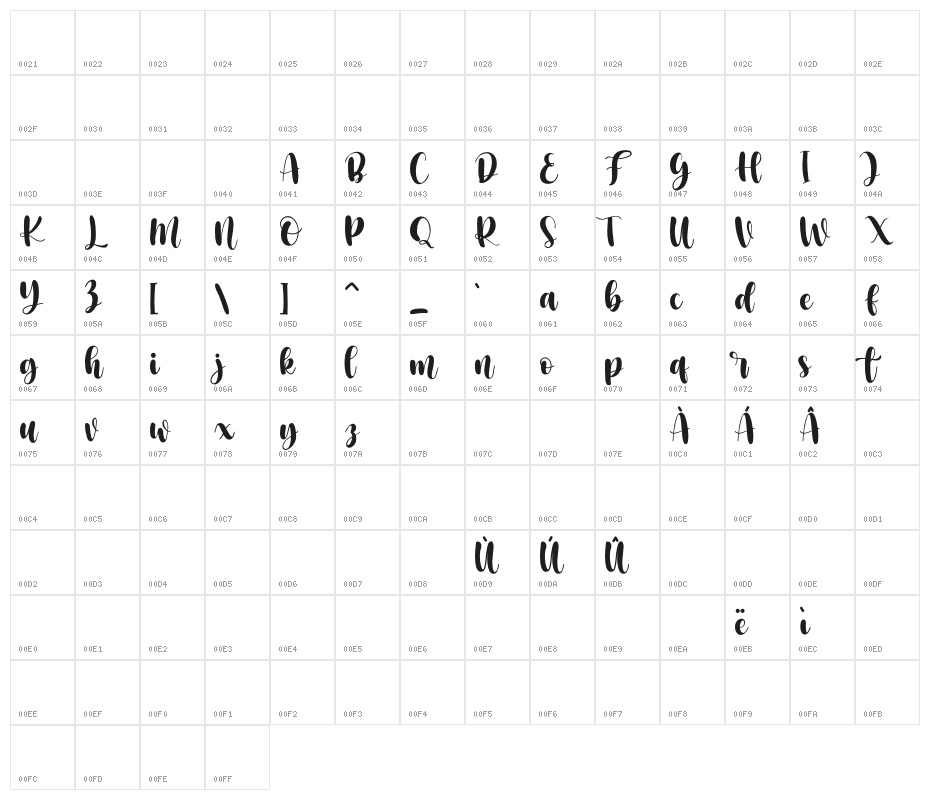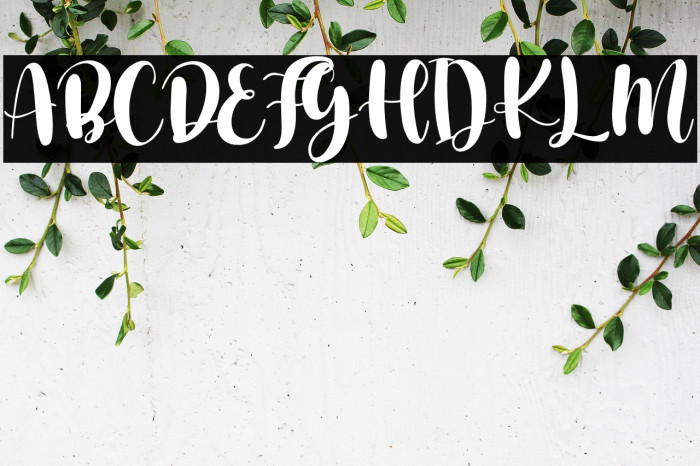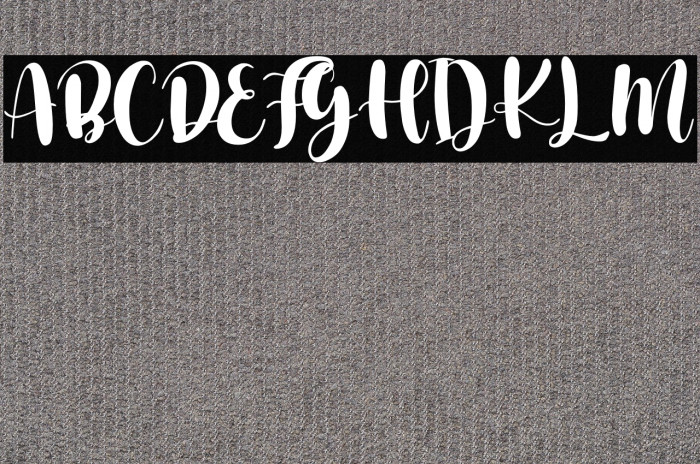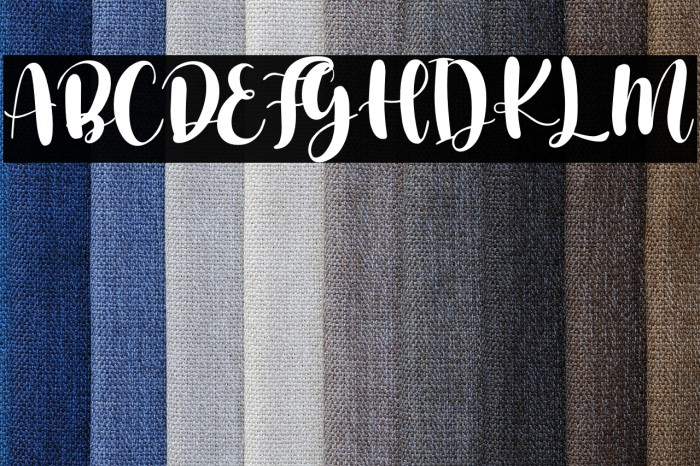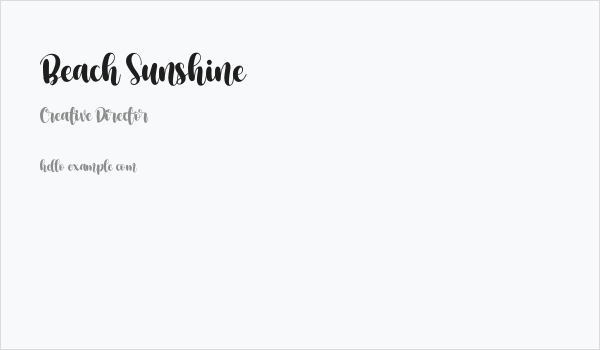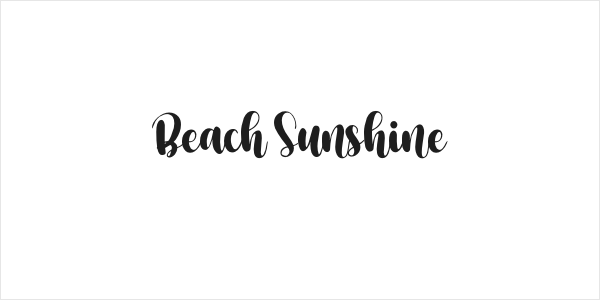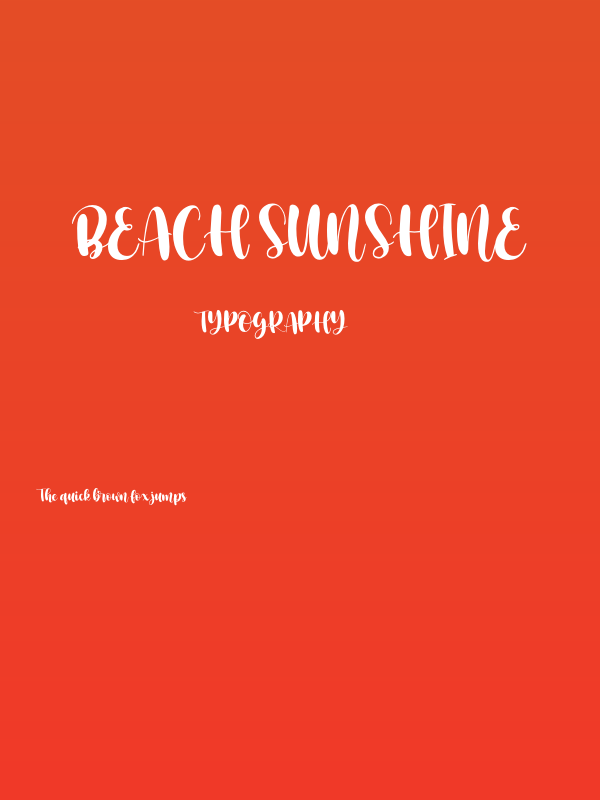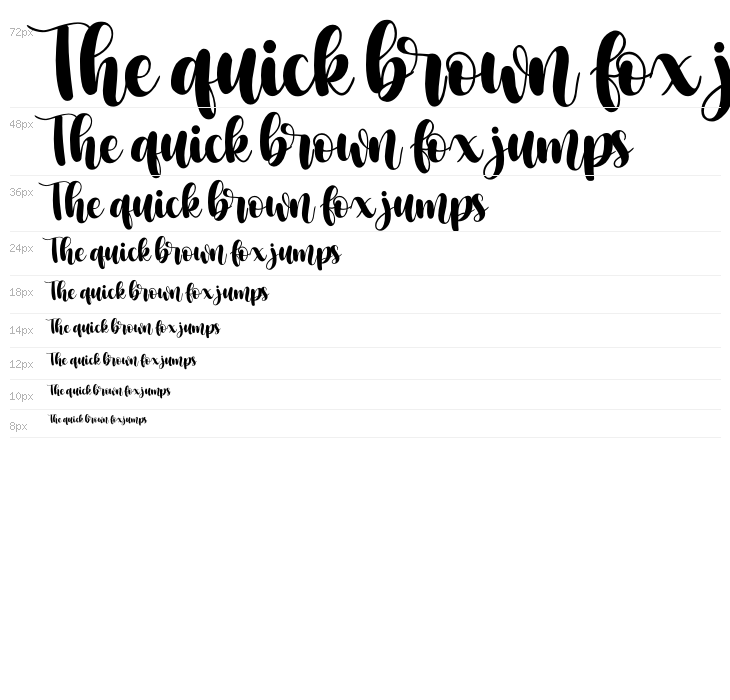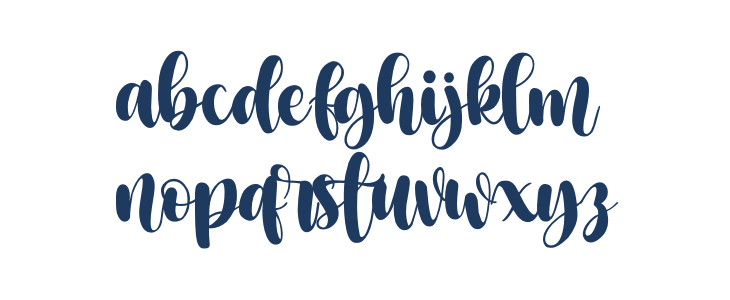
Beach Sunshine Font
Beach Sunshine Description
This font features a lively and flowing script style, characterized by its elegant and cursive letterforms. The strokes are bold and sweeping, with a playful and dynamic rhythm that captures attention. Each character is crafted with a sense of movement, incorporating loops and flourishes that add a touch of sophistication and whimsy. The uppercase letters are particularly ornate, while the lowercase letters maintain a consistent fluidity. This font is ideal for projects that require a personal and artistic touch, such as invitations, greeting cards, and branding materials.